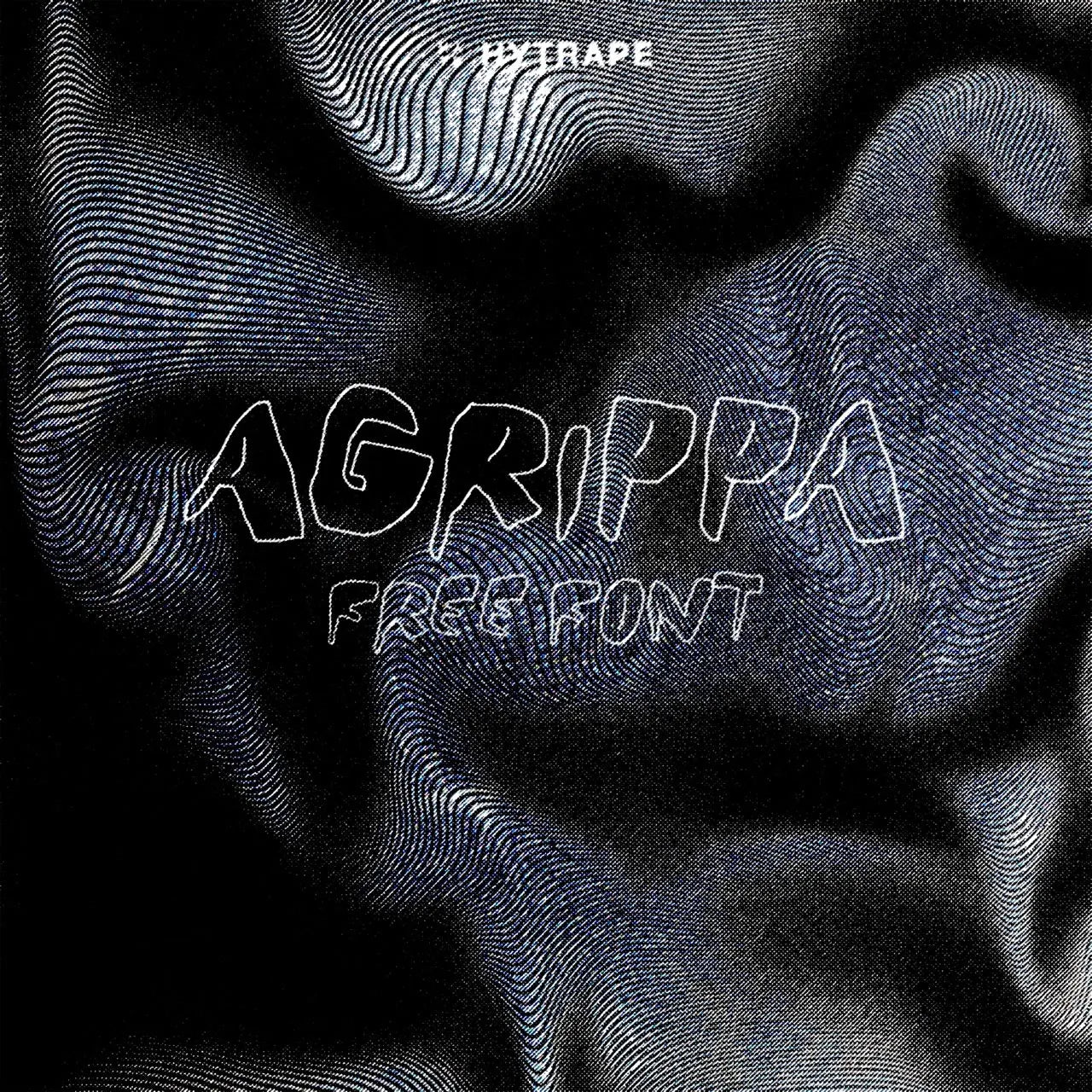
Agrippa is a display font with outlined letters and a thin, irregular line, as if drawn by hand. It gives headlines, covers and posters a nervous, organic feel. Use it large so the outline stays readable.